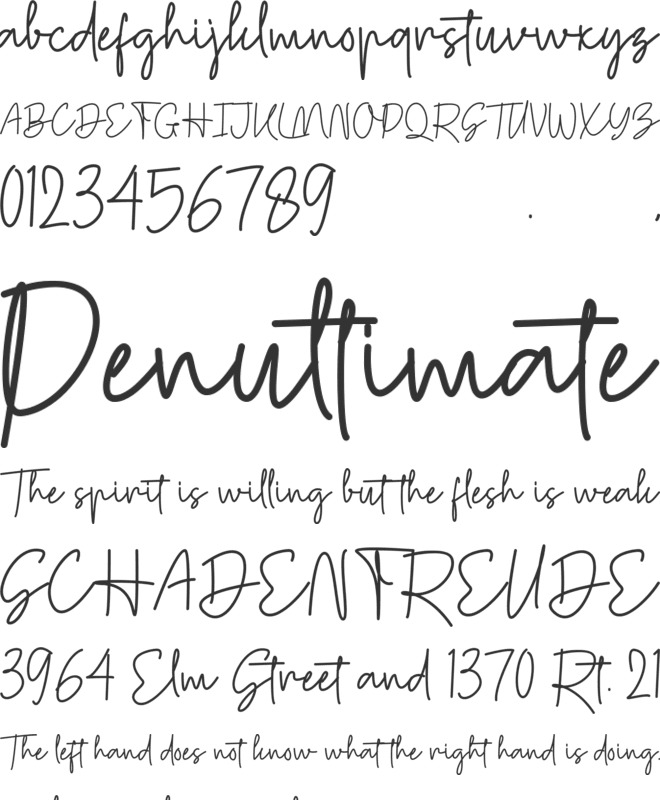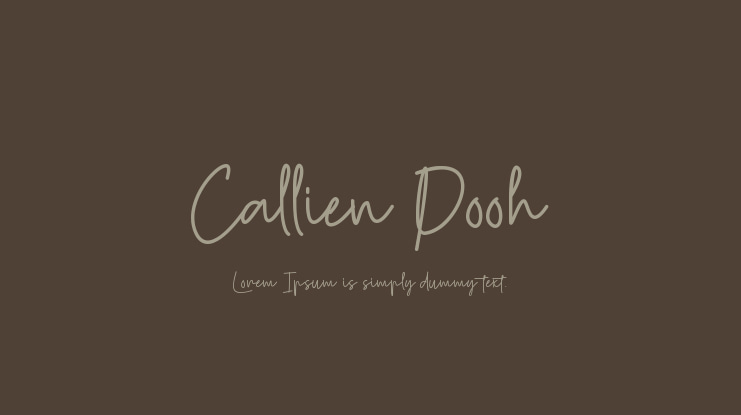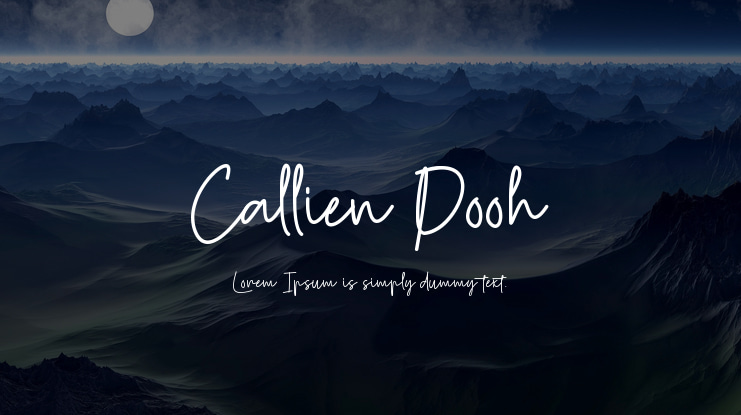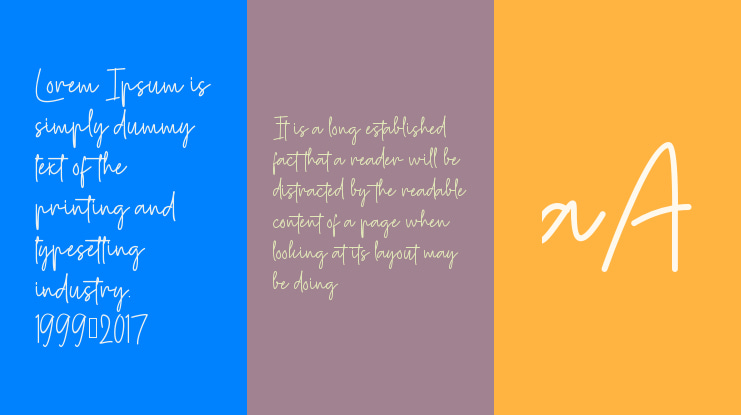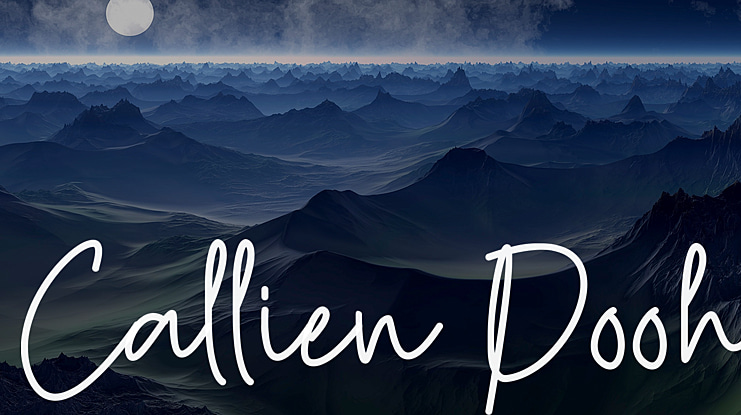
Callien Pooh Font
Callien Pooh is a signature font, with sweet touches and beautiful curves on each letter. This font is great for your next creative project.
Callien Pooh is perfect for fashion magazines, product watermarks, branding projects, wedding designs, social media posts, advertisements, product designs, label product, logo product, photography, invitation, card business and any projects that need signature style taste.